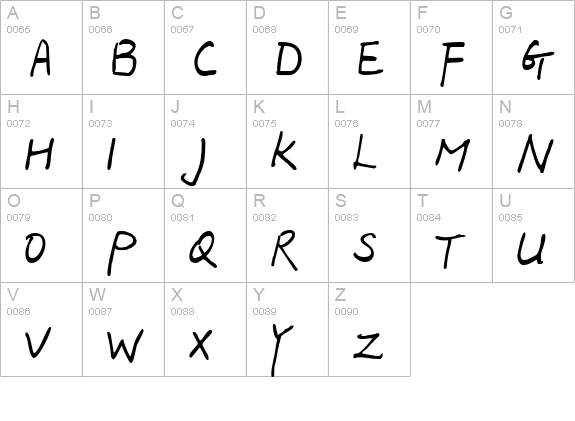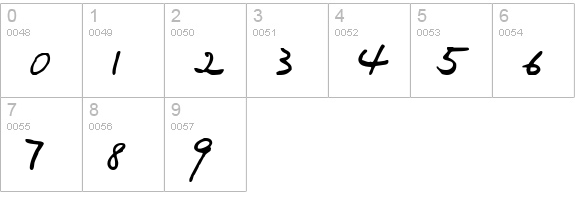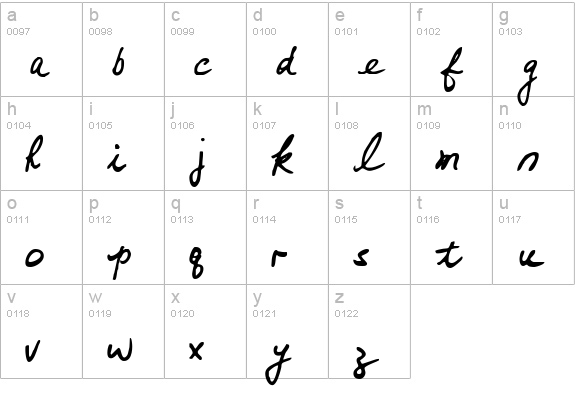
Mumsies Font Details
Mumsies font is a delightful and charming typeface that exudes warmth and friendliness. Its elegant curves and playful flourishes make it perfect for a variety of design projects, from invitations to branding to social media graphics. The Mumsies font is a versatile choice that can add a touch of whimsy to any project. Best of all, Mumsies font is available for free download at FontsMarket.com. This means that you can easily access this beautiful font and start using it in your designs without any cost. Whether you're a professional designer or a hobbyist looking to add a special touch to your creations, Mumsies font is a fantastic choice that won't break the bank. Download it today and let your creativity soar with this lovely and expressive typeface.